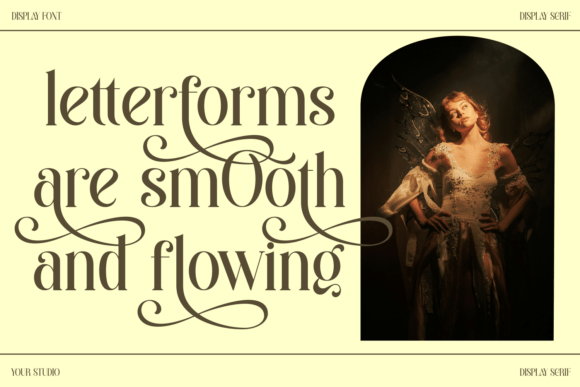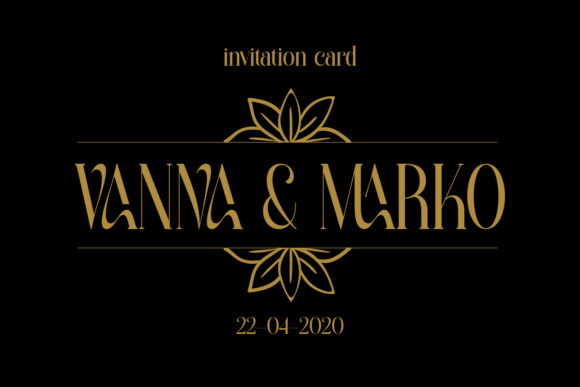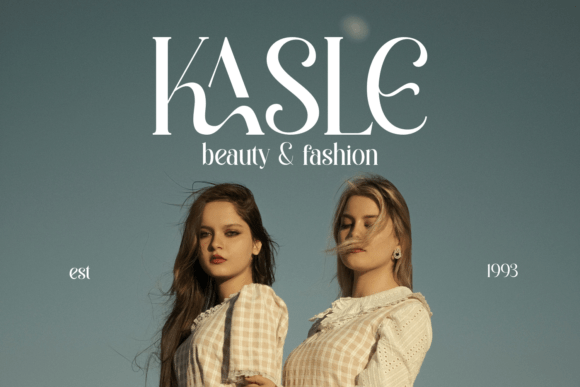
Introduction to Emerale Font
The font a sophisticated serif display typeface with a strong sense of elegance and artistic refinement.
It combines classic serif structure with expressive ornamental flourishes, making it highly suitable for luxury branding and high-end visual presentations 1.
Key Features of Emerale Font